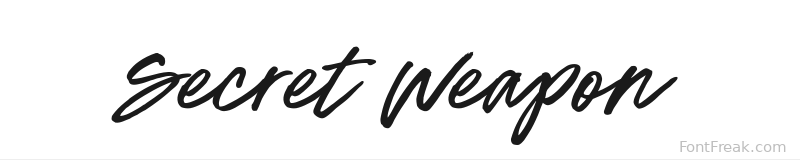
Secret Weapon
About Secret Weapon
Secret Weapon by BLKBK Fonts is a striking handwritten font that captures attention with its unique flair and artistic charm. This font exhibits a dynamic stroke weight, which varies gracefully throughout the characters, giving it an organic and lively appearance. The contrast between the thicker and thinner strokes adds depth, while the natural spacing allows for easy readability. With its whimsical loops and swirls, Secret Weapon embodies a playful spirit, making it an ideal choice for creative projects.
This versatile font is perfect for a variety of use cases. It can shine on wedding invitations, where its elegant yet informal style conveys warmth and personalization. Additionally, Secret Weapon is well-suited for movie posters, imparting a sense of drama and intrigue that can captivate an audience. Restaurant menus can also benefit from its aesthetic, helping to evoke a welcoming atmosphere that invites patrons to explore the offerings. Content creators will find this font useful for social media graphics, as it adds a unique touch that stands out in crowded feeds.
Targeting graphic designers, small business owners, and content creators, Secret Weapon is a font that resonates with those looking to make a statement. Its free availability allows users to incorporate this stylish typeface into their projects without the constraints of licensing fees, making it accessible for a wide range of applications.
What truly sets Secret Weapon apart is its ability to blend artistic expression with functionality. This handwritten font is not just visually appealing; it also conveys a sense of authenticity and creativity. For anyone looking to elevate their design projects, the Secret Weapon font free download offers a perfect solution to enhance visual storytelling.